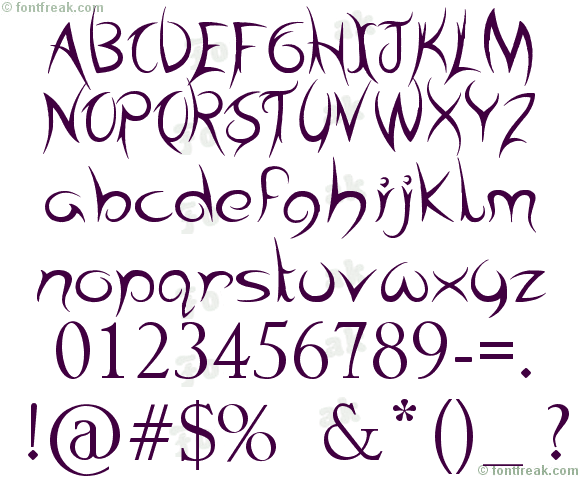
Tribal Times
Tribal Times, designed by Jonathan S. Harris, is a unique decorative font that embodies a strong tribal aesthetic. This font features elongated, stylized letterforms characterized by sharp, angular strokes that convey a sense of movement and energy. The stroke weight varies, providing an interesting contrast that adds depth and visual intrigue. The spacing between letters is generally tight, enhancing its artistic flair while maintaining readability. Tribal Times incorporates decorative elements that evoke cultural motifs, making it an ideal choice for projects that seek to capture an adventurous or exotic spirit.
This font is versatile for a variety of creative applications. It is particularly well-suited for tattoo designs, where its intricate details can create striking visual statements on skin. Additionally, it can enhance the impact of music festival posters, providing a bold and captivating typeface that draws attention. Other fitting use cases include branding for restaurants that emphasize a cultural theme, as well as promotional materials for art galleries or cultural events. Graphic designers and content creators will find Tribal Times to be an excellent choice when aiming to evoke a sense of heritage or tribal influence in their work.
The target audience for Tribal Times includes graphic designers, small business owners, and marketing professionals who seek to differentiate their projects with a distinctive font. Whether used in print or digital formats, this font offers a unique voice that resonates with various artistic visions.
What truly sets Tribal Times apart is its ability to blend functionality with artistic expression. The combination of its striking visual characteristics and cultural inspiration makes it not only visually appealing but also a compelling choice for anyone looking to make a lasting impression. For those interested in exploring its potential, the Tribal Times font free download is readily available, inviting creativity and innovation.